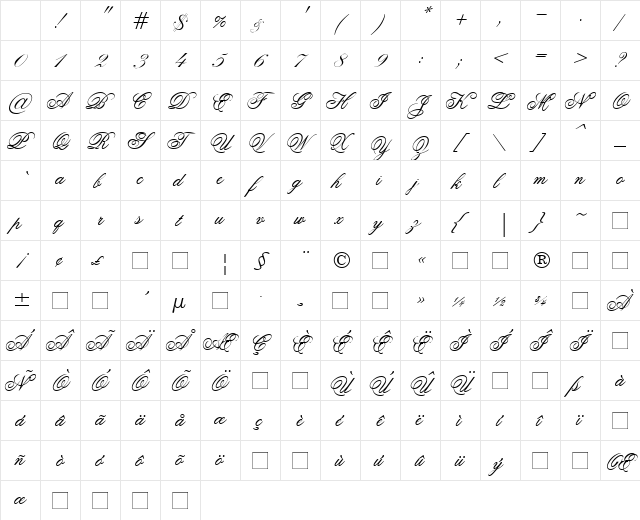
Centurion ES Regular
Design Context for Centurion ES
Centurion ES is a composed and adaptable typeface that performs quietly and consistently across a wide range of design contexts.